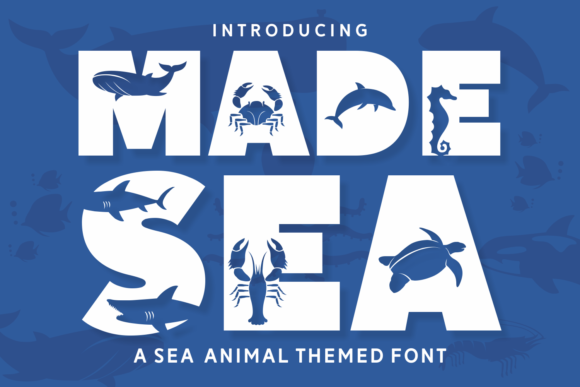
Slip into the world of Made Sea Font, a decorative font that ripples with playfulness and authenticity. Its whimsical contours and spirited charm make it the perfect companion for any children's activity or school project. Picture this font dancing across your screens, weaving stories of adventure, creativity, and imagination.
Dive into the ocean of creativity with Made Sea Font. Its PUA encoding grants you the freedom to effortlessly unleash a symphony of glyphs and swashes, empowering you to craft captivating designs that resonate with your audience. Picture this font as your artistic compass, guiding you towards a world of visual wonders.
Made Sea Font is more than just a font; it's an invitation to embark on a journey of self-expression. With its distinctive personality, it transforms ordinary words into captivating tales, adding a touch of magic to every project you undertake. Unleash your inner child and let your creativity flourish as you explore the boundless possibilities that await you with Made Sea Font.
Whether you seek to craft enchanting logos, captivating posters, or vibrant social media graphics, Made Sea Font is your trusty companion, elevating your designs to new heights. Its playful spirit effortlessly captivates, leaving a lasting impression on all who encounter it. Embrace the joy of creation and watch as your projects come alive with the undeniable charm of Made Sea Font.
So, immerse yourself in the whimsical world of Made Sea Font, let your imagination set sail, and create designs that dance with delight. Elevate your projects to the next level, embrace the power of playfulness, and embark on a creative adventure like no other.